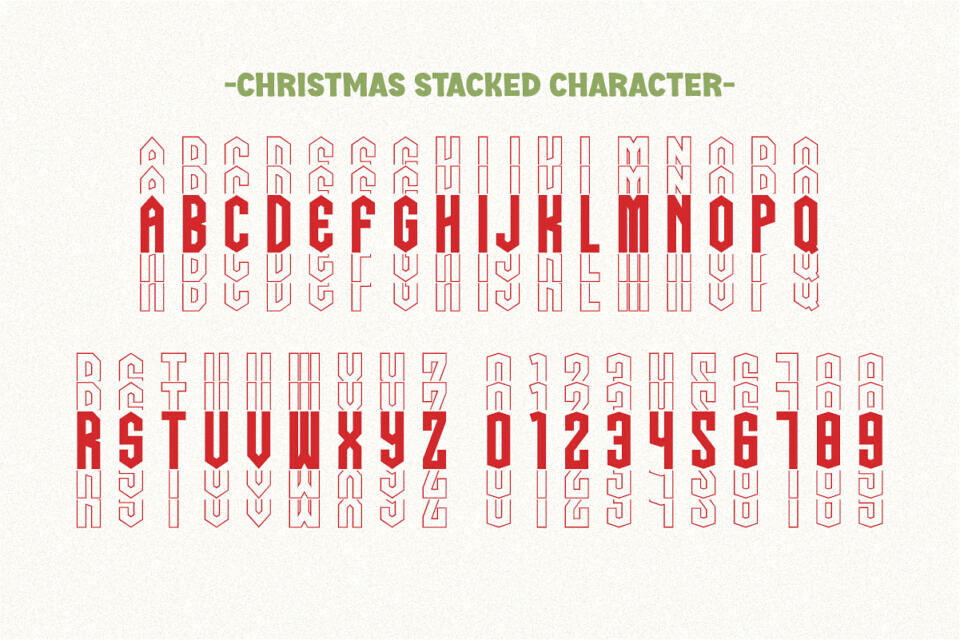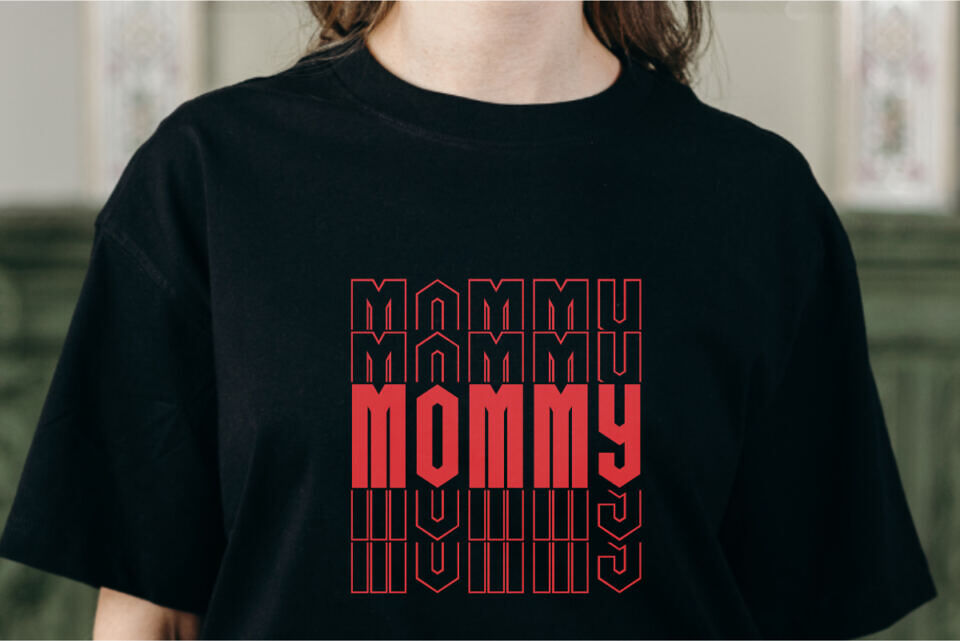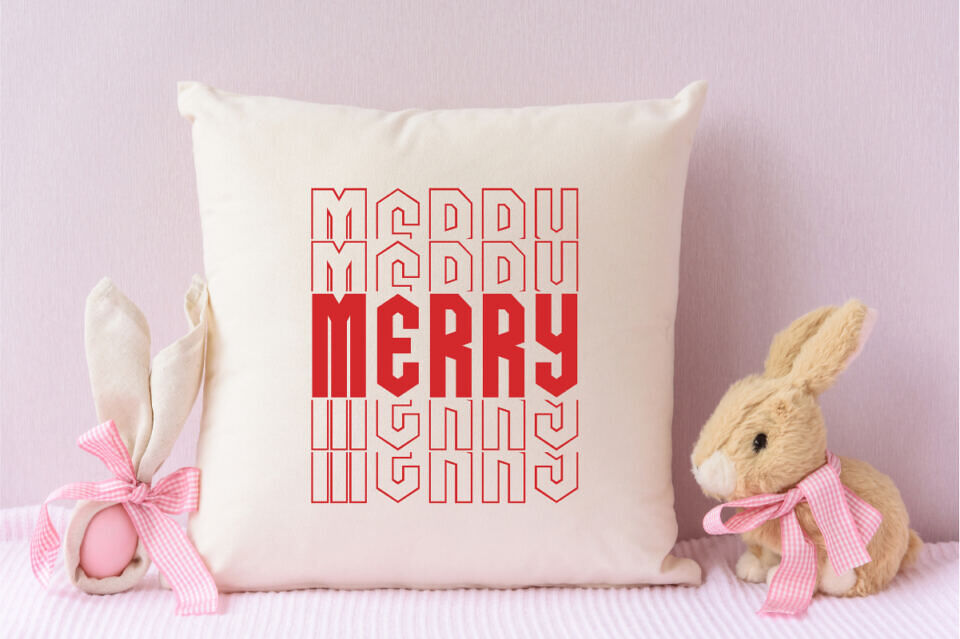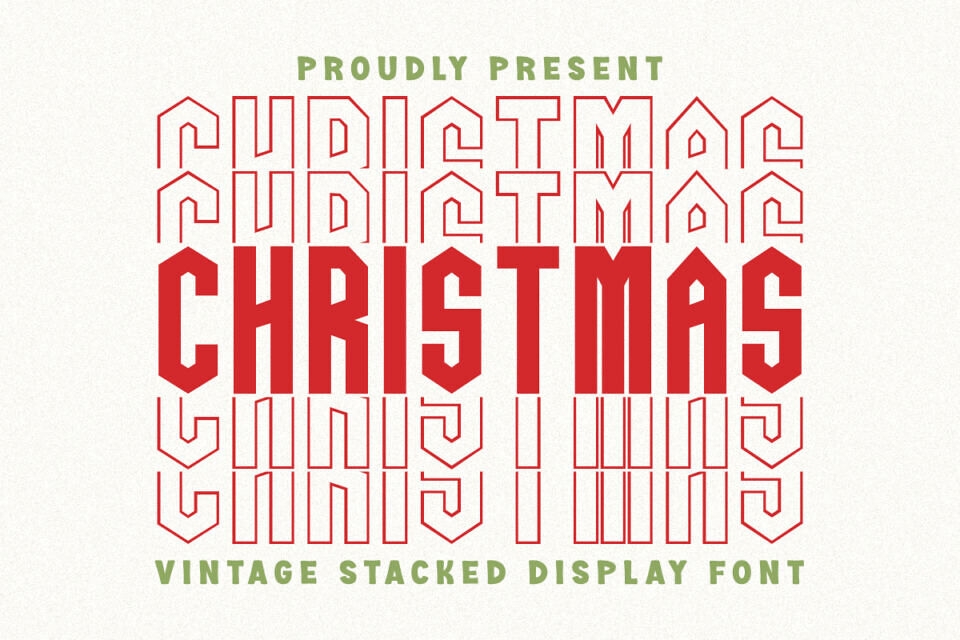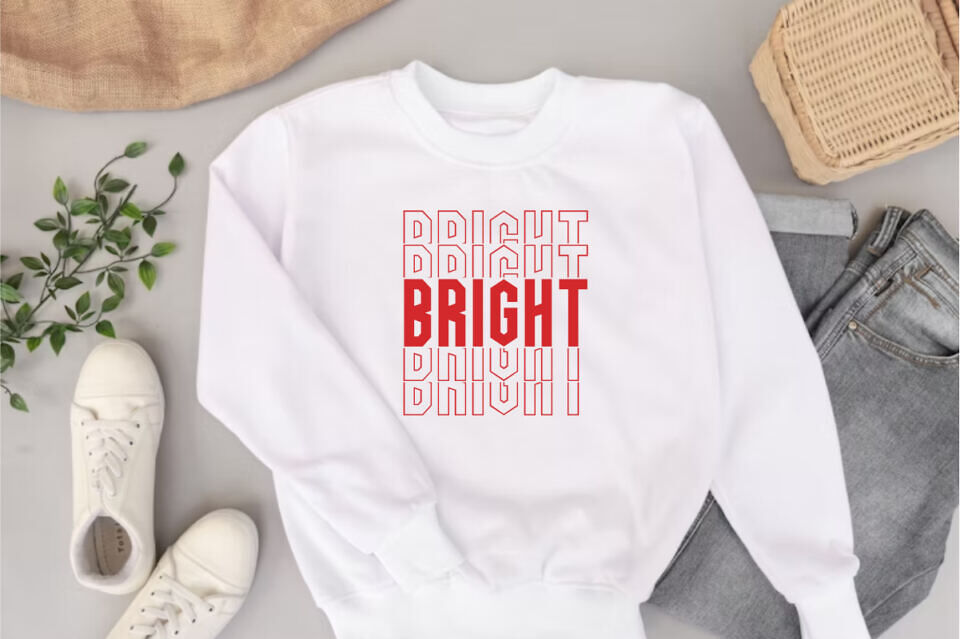
Christmas Stacked Font
Introducing the Christmas Stacked Display Font, a striking typeface that perfectly blends vintage retro style with a festive holiday feel.
Inspired by classic block lettering and mid-century aesthetics, this font is meticulously designed to create a bold, layered, and impactful look for all your seasonal projects.